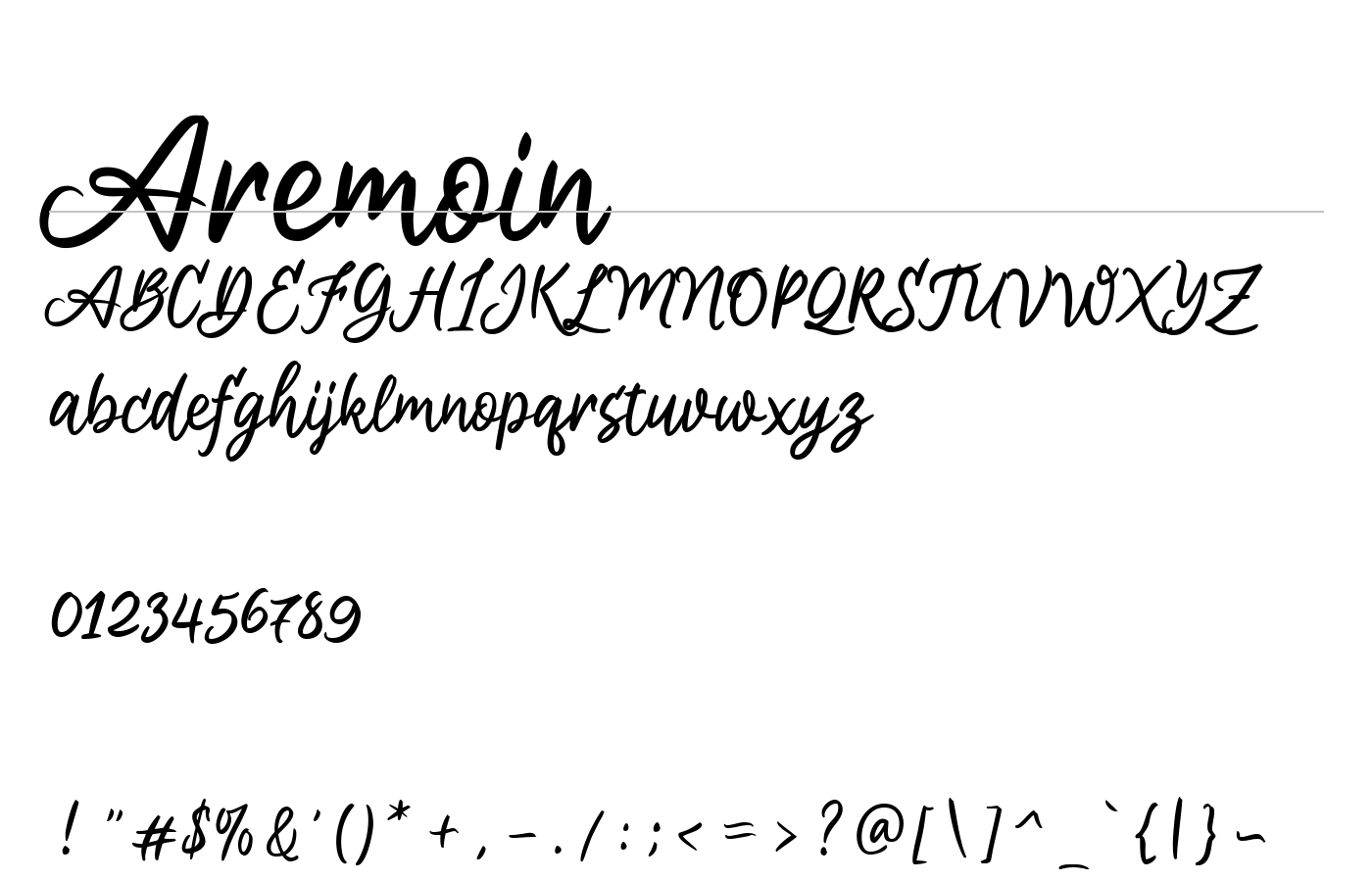
Aremoin is an elegant script font that combines fluid, hand-drawn strokes with a lively and personal touch. Its smooth, slightly varied line thickness and flowing connections give it a natural, sophisticated feel, making it ideal for branding, invitations, and creative projects that seek a stylish yet approachable look. This font works beautifully for logos and headlines where a feminine, artistic flair is desired.
Aremoin Font
About Aremoin Font
| Font family | Aremoin Font |
| Designer | Ali Hamidi |